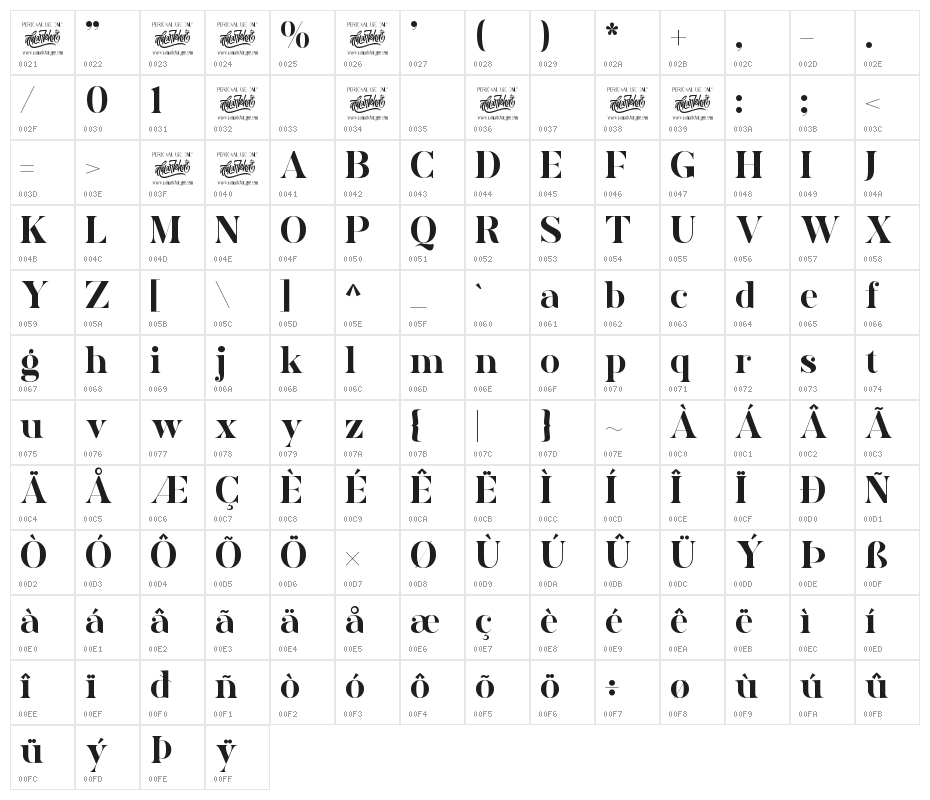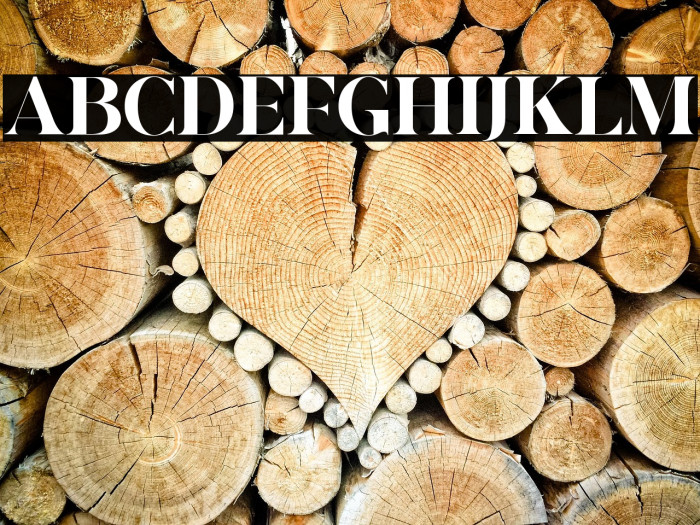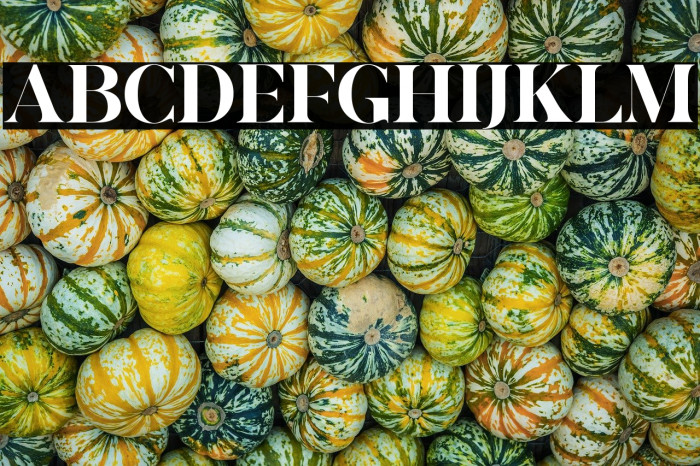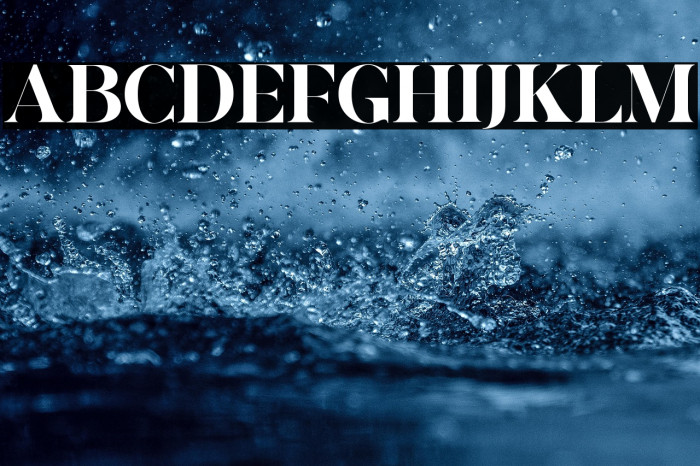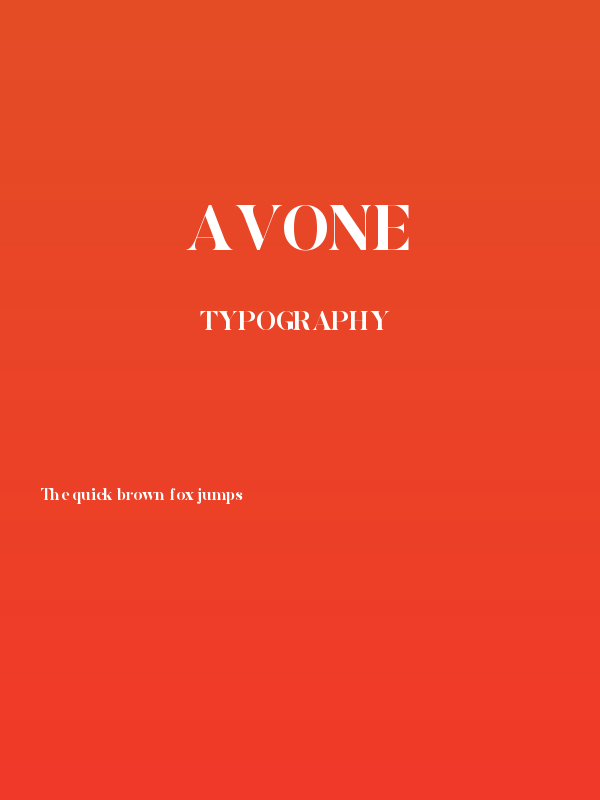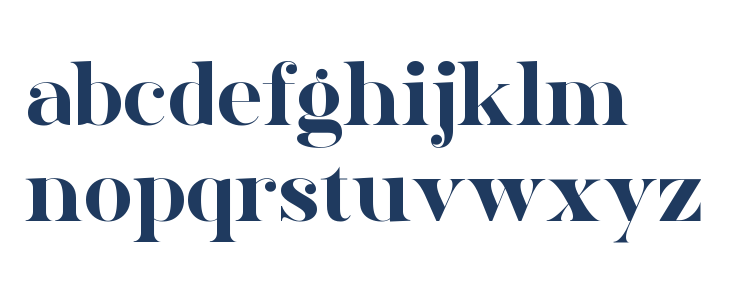
AVONE Font
AVONE Description
This font features a bold and striking design with high contrast between thick and thin strokes, giving it a dramatic and elegant appearance. The uppercase letters are particularly wide and commanding, while the lowercase letters maintain a consistent style with unique flourishes. The numerals and special characters follow the same bold aesthetic, making them stand out. This font is ideal for creating a strong visual impact, suitable for various design projects that require a touch of sophistication and modernity.
| Proposed Projects | Ideal for branding, headlines, posters, and editorial design where a strong visual impact is needed. |